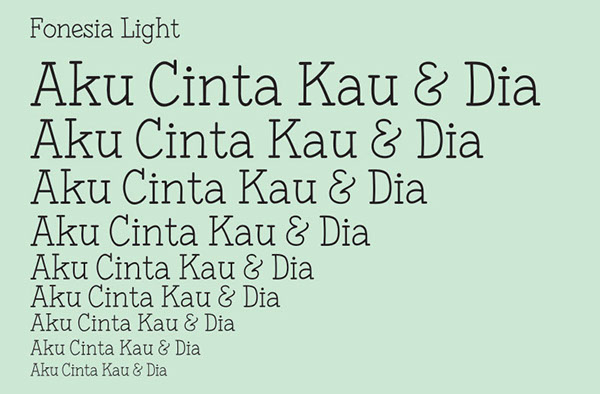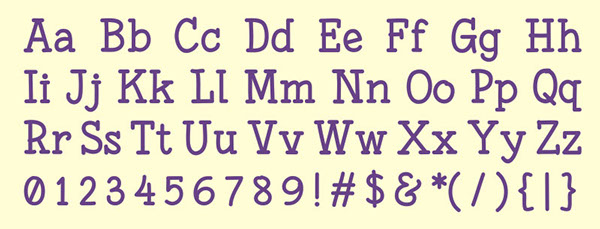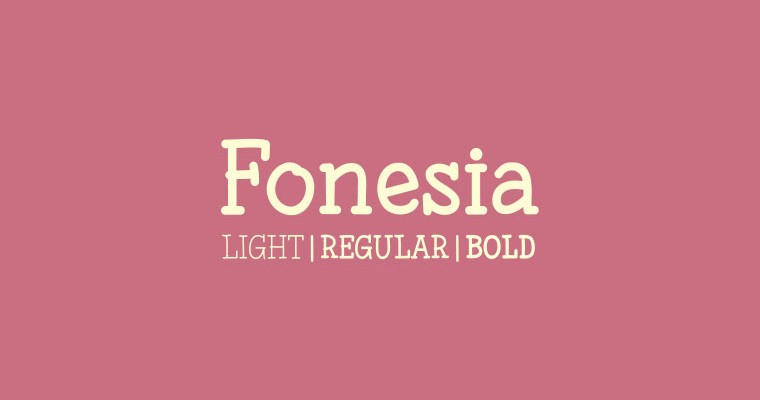
Fonesia is a fun, easy-to-read font, perfect for posters and websites. It has small serifs and is available in three styles; light, regular and bold. It comes with a standard glyph set: uppercase, lowercase, numbers, punctuation and some symbols. Fonesia will give a natural, casual impression to your designs. Grab the font now and feel free to share it. Also don’t forget to subscribe to our YouTube Channel to get more amazing stuffs.